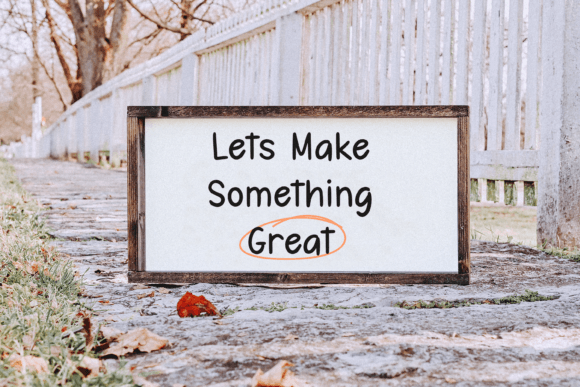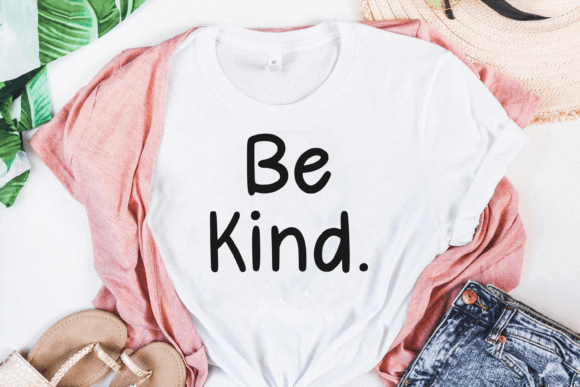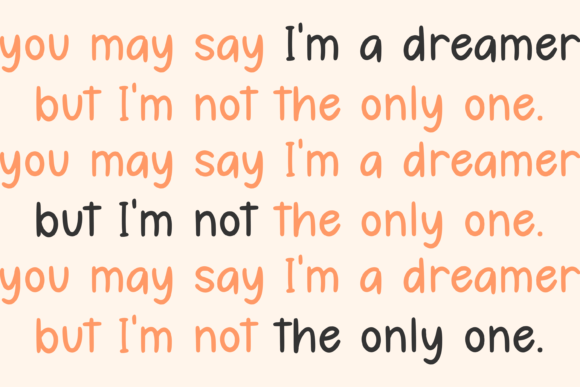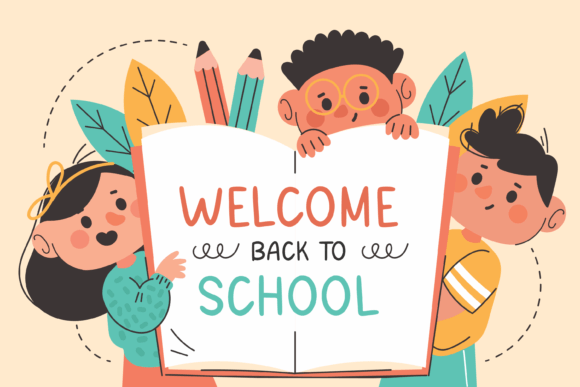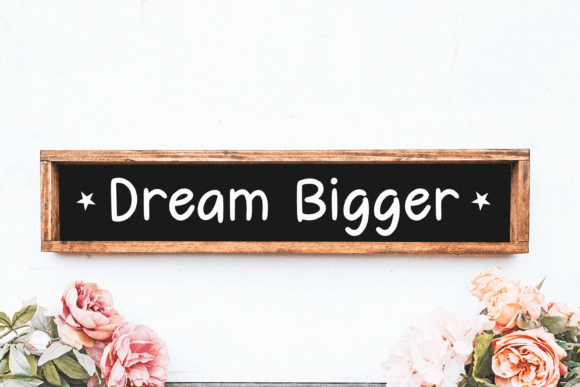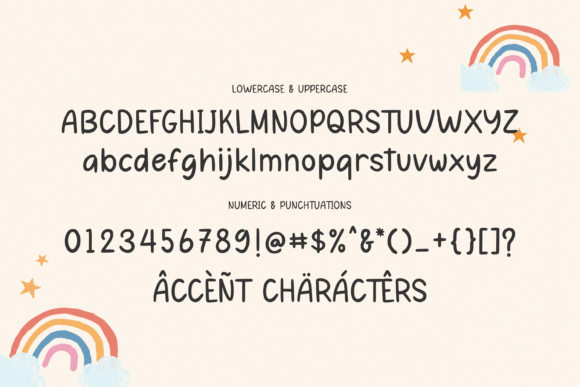
Introduction to Monday Feelings Font
As a designer, have you ever stared at a blank canvas, trying to spark inspiration for your next creative project? We’ve all been there, struggling to find that perfect font that captures the essence of our vision. But what if I told you that there’s a font that can make your designs shine, effortlessly elevating your work to the next level? Enter Monday Feelings Font, a stunning, high-quality handwritten font that’s perfect for adding a personal touch to your projects.
Monday Feelings Font is more than just a design resource – it’s a valuable tool for designers looking to add a creative twist to their work. With its friendly, approachable feel, it’s perfect for product packaging, branding projects, magazine layouts, social media graphics, and even wedding designs. And the best part? It’s available for free download, making it an accessible and versatile design resource for designers of all levels.
Key Features of Monday Feelings Font
- High-quality design: Monday Feelings Font is a beautifully crafted, professional font perfect for any creative project.
- Unique characteristics: The font’s unique blend of modern and minimalist styles makes it perfect for creative projects that require a touch of sophistication.
Honest Review: Monday Feelings Font
I recently came across the Monday Feelings Font, a free download that caught my attention for its unique design. As a designer, I appreciate high-quality resources that can elevate my creative projects.
Here are some things that work well for this font:
- ✨ Unique and quirky design that’s perfect for adding a personal touch to my projects.
- ⚠️ The font may not be suitable for all types of projects, particularly those that require a more formal or professional tone.
- ⚠️ Some users may find the font’s quirky design to be distracting or overused.
Overall, I think the Monday Feelings Font is a great addition to any designer’s toolkit, particularly for creative projects that need a bit of personality. With its unique design and transparent background option, it’s a great resource to have on hand.
How to Use Monday Feelings Font
For best results, use the Monday Feelings Font with a transparent background to create a clean and modern look. Experiment with different font sizes and colors to add depth and interest to your design.
Common Use Cases for Monday Feelings Font
The Monday Feelings Font is ideal for use in branding, marketing materials, and social media graphics. Its unique design and high-quality feel make it perfect for creating eye-catching and memorable designs.